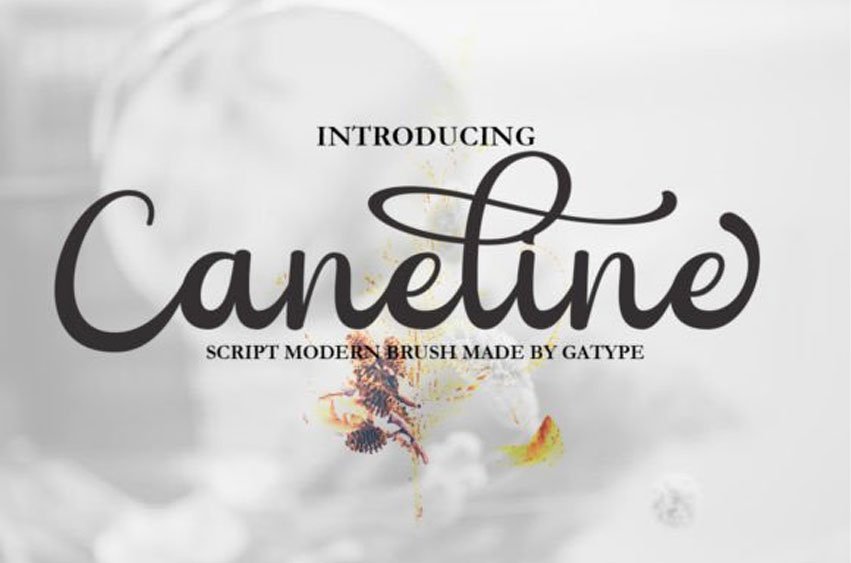
Caneline Font feels equally charming and elegant.
It looks stunning on wedding invitations, thank you cards, quotes, greeting cards, logos, business cards, and every other design which needs a handwritten touch.